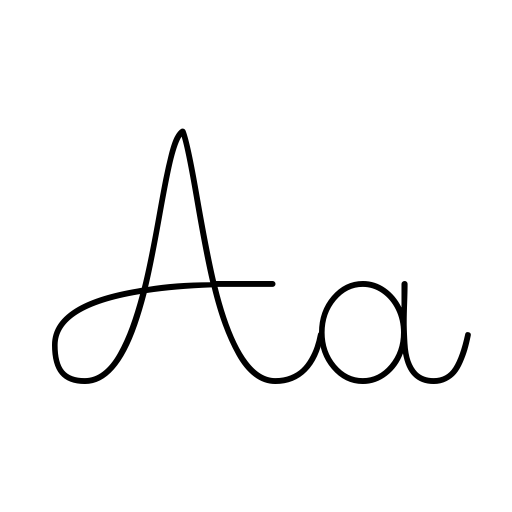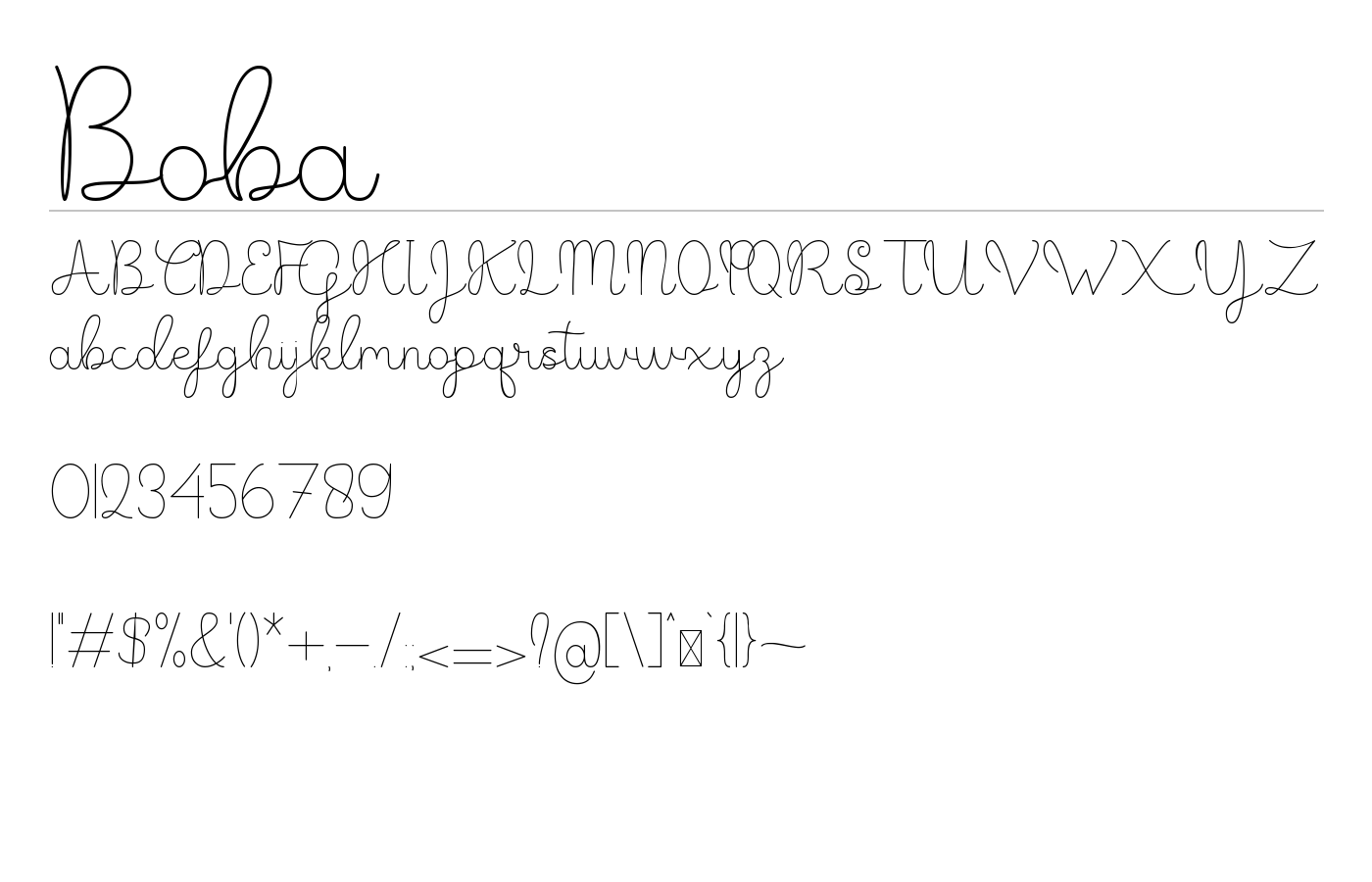
Boba Font is a delicate, handwritten script with thin, flowing lines and a whimsical, airy feel. Its slender, looping letterforms and light weight give it a playful yet elegant personality, making it perfect for creative branding, invitations, and decorative accents where a friendly, personal touch is desired. This font shines in projects that benefit from a unique, handcrafted look without sacrificing readability.
Boba Font
About Boba Font
| Font family | Boba Font |
| Designer | hardiboy design |